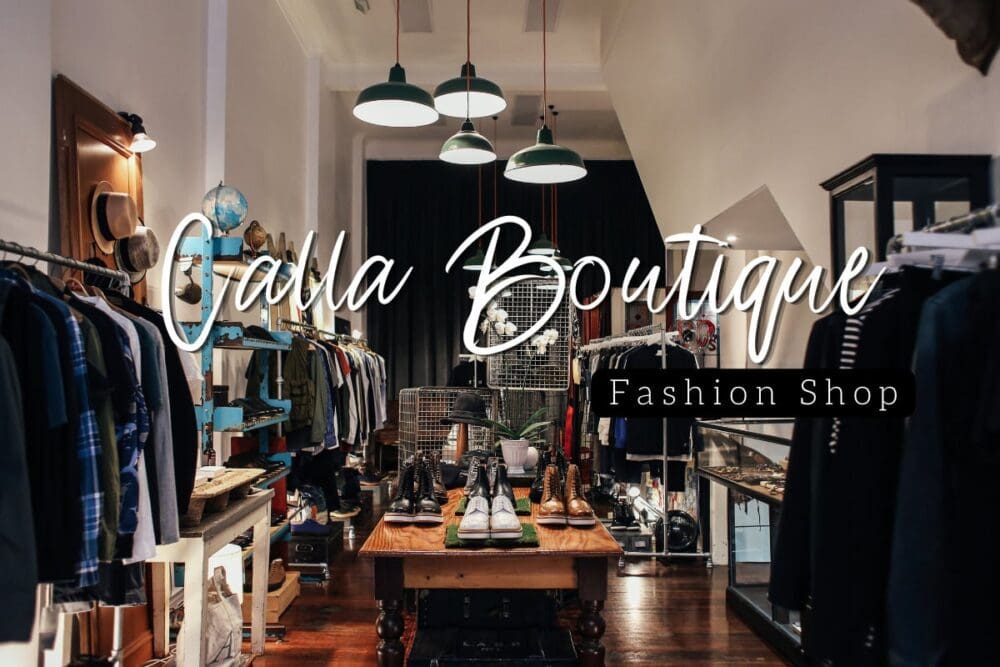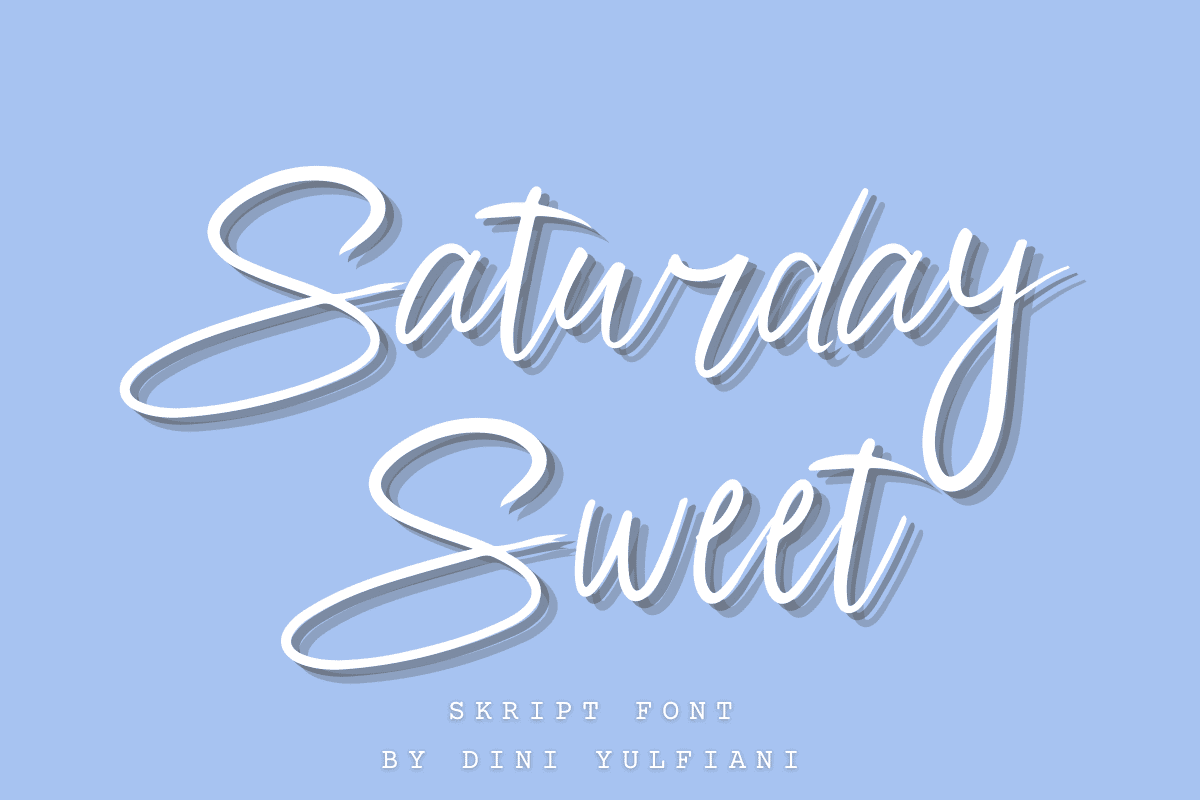
Saturday Sweet Font
Saturday Sweet Font. This font is handwritten font. it’s very suitable to be applied in your design, also it’s perfect for logo, branding, title, social media post, advertisements. product packaging, product designs, label, photography, special event, web design, etc.